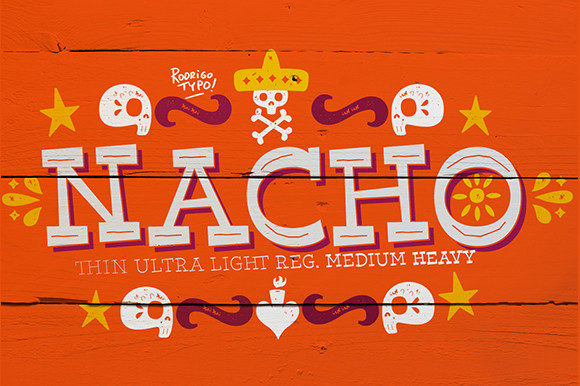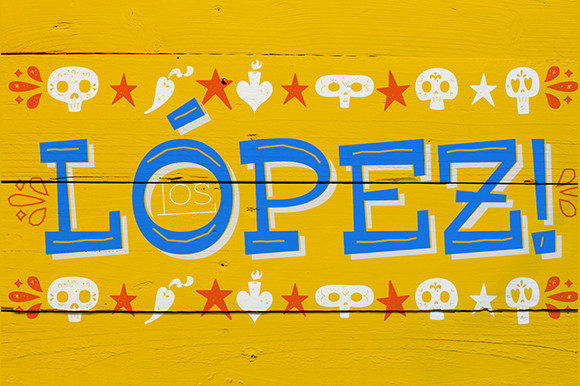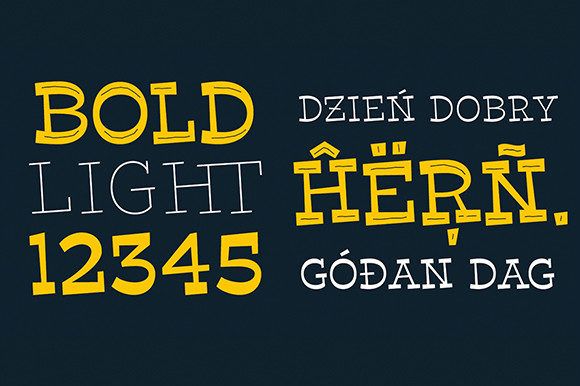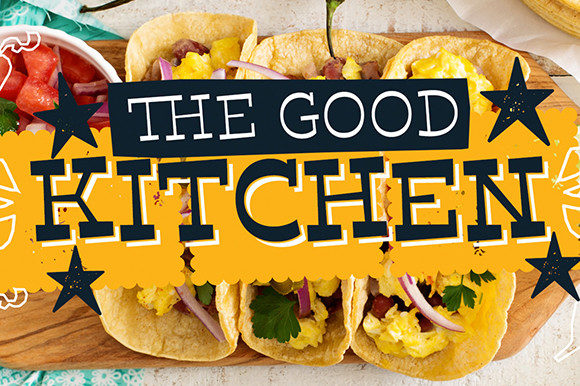
Nacho Font
About the Nacho Font
From logos to headlines, the Nacho Font is the perfect choice for making a lasting impression. Nacho is a cool and fun slab serif font, inspired by the Mexican culture as the party of the dead and customs. This font reads as vintage, fun, and dynamic and can add tons of nostalgic character to your designs.
Nacho’s bold, playful personality makes it ideal for headlines, posters, and short-form text in branding materials. Its vintage feel works particularly well for projects with a retro or festive aesthetic, such as event invitations or food packaging. However, its strong character and relatively high x-height make it less suitable for body text or UI elements where readability over extended lengths is paramount.
Pairing Nacho effectively requires considering its robust nature. A clean sans-serif like Montserrat or Open Sans would provide a solid counterpoint, offering legibility for supporting text. For a more playful approach, a rounded geometric sans-serif such as Futura could enhance the fun, vintage vibe. Avoid pairing it with overly ornate scripts, which would clash with its distinctive personality.
Its strong visual presence makes Nacho a great choice for brands aiming for a memorable, slightly rebellious yet approachable image – think artisanal food products, quirky boutiques, or music festivals. The font’s vintage inspiration lends itself well to designs evoking nostalgia and a sense of handcrafted quality.